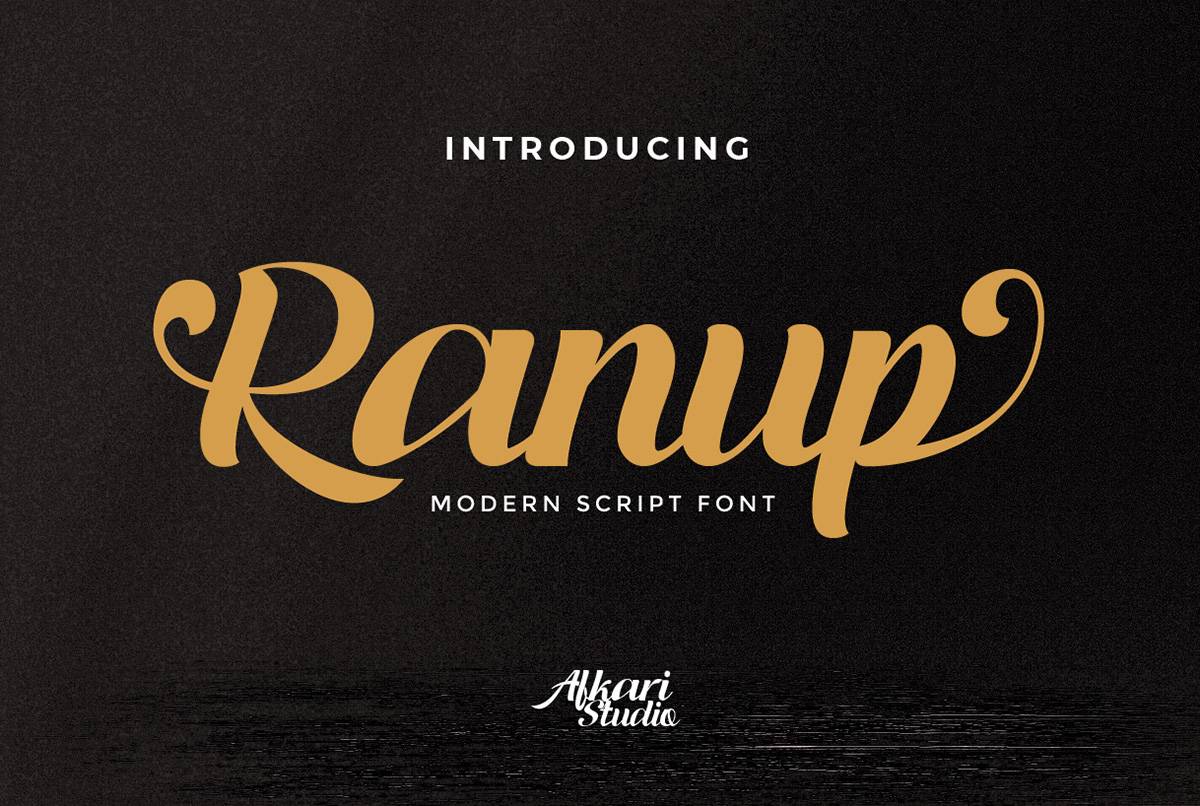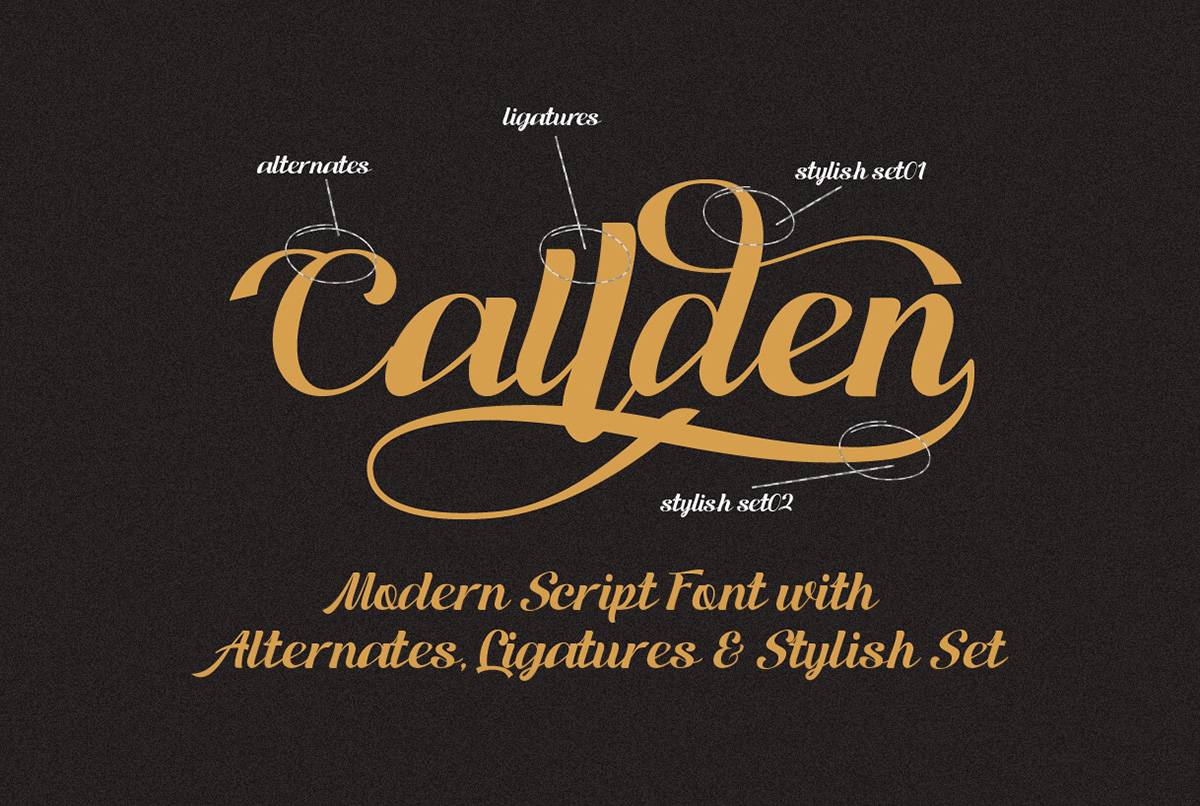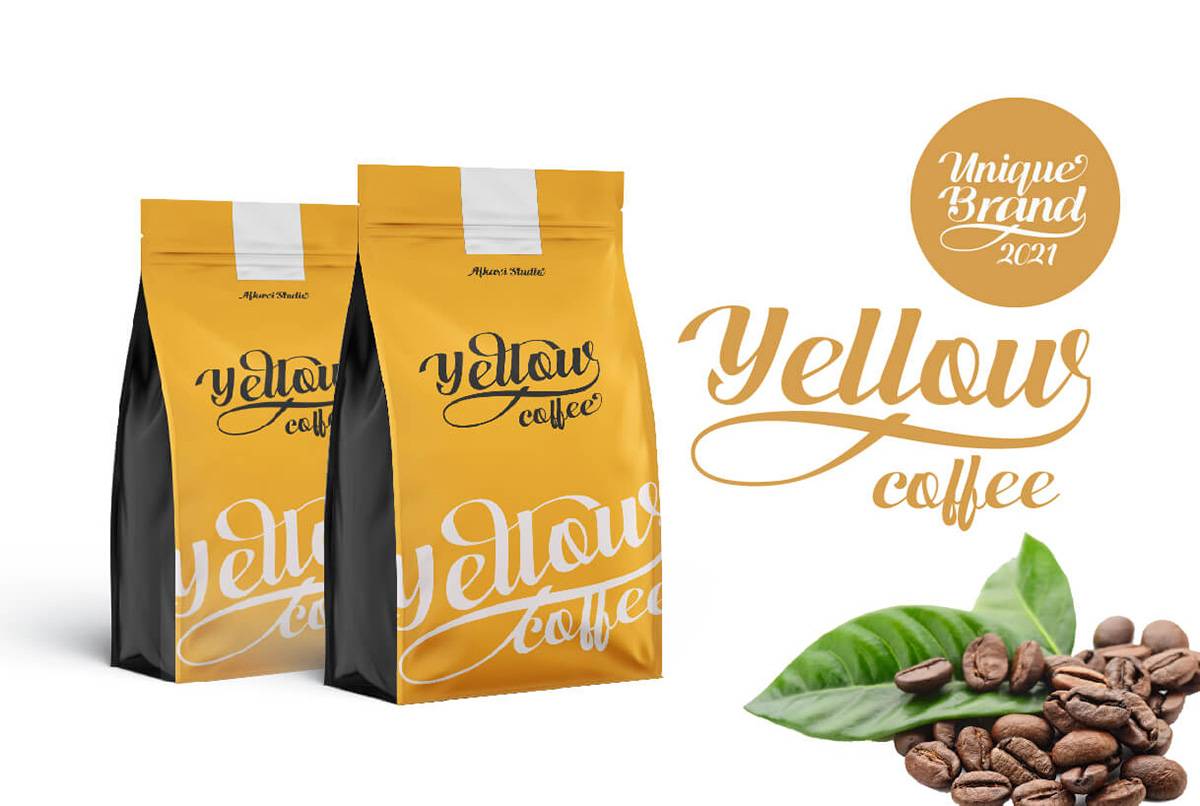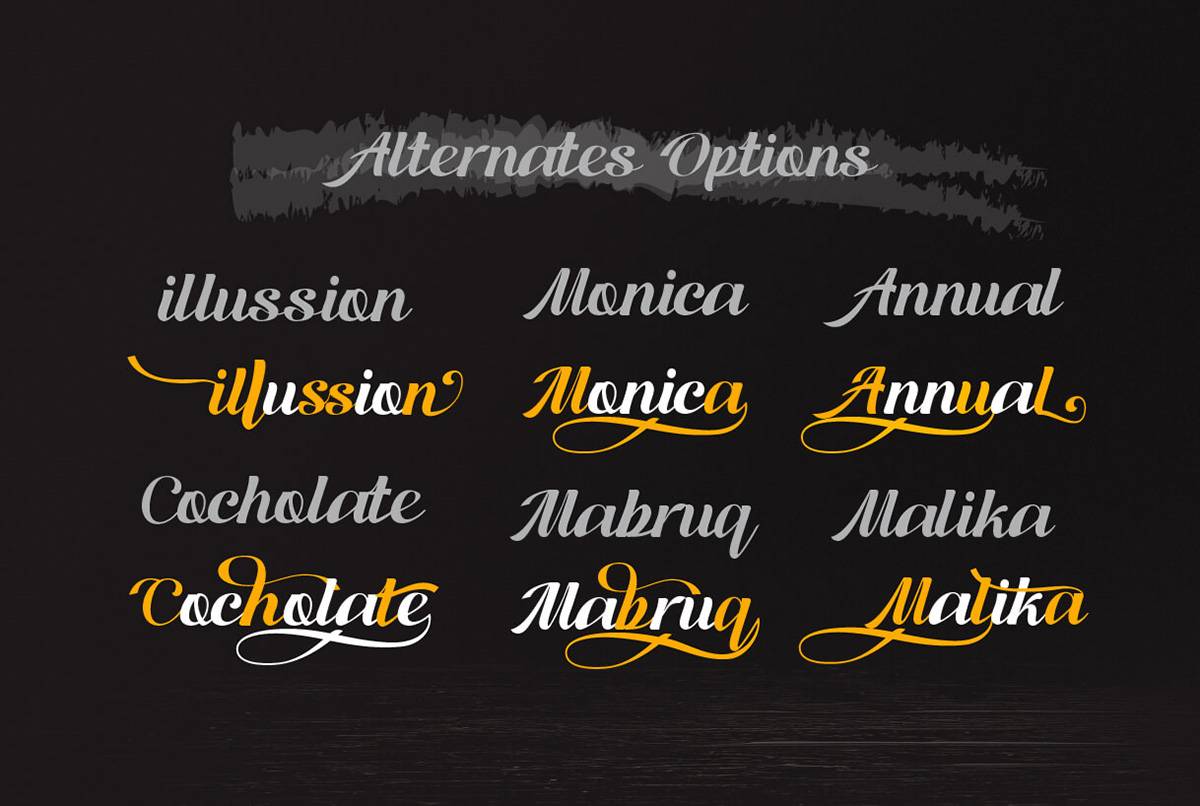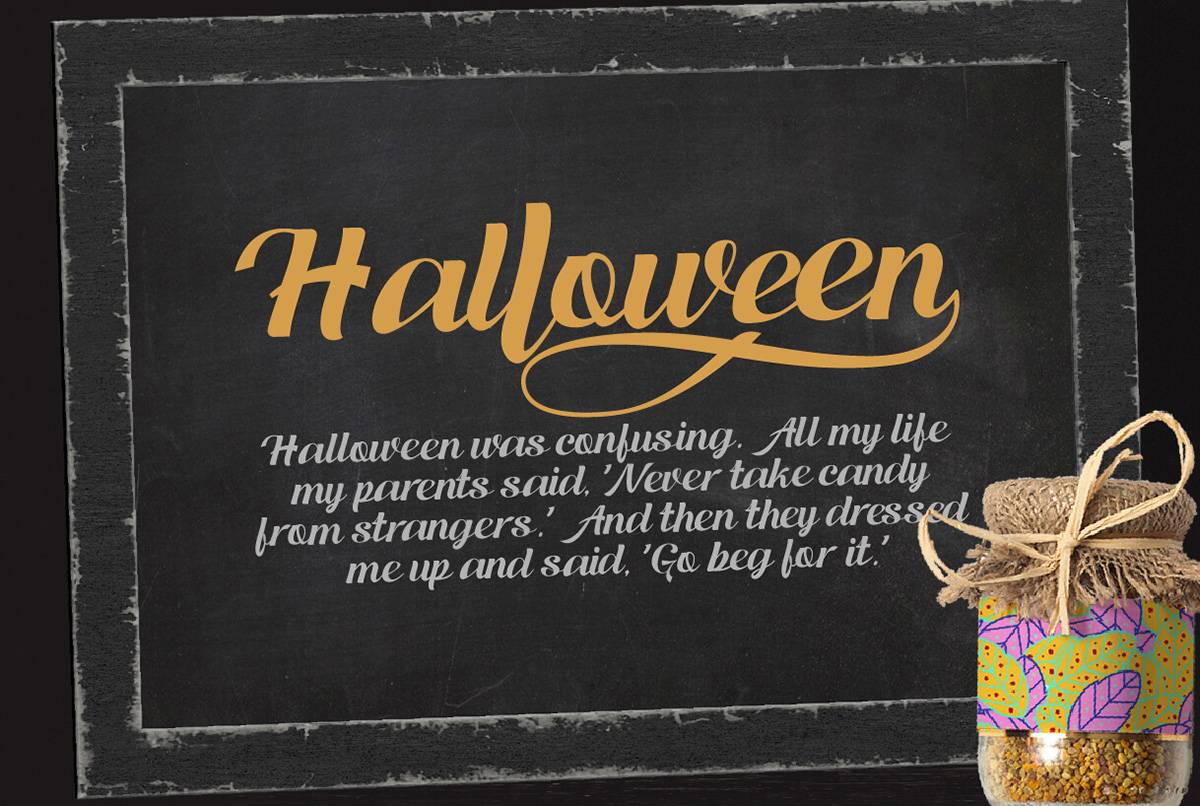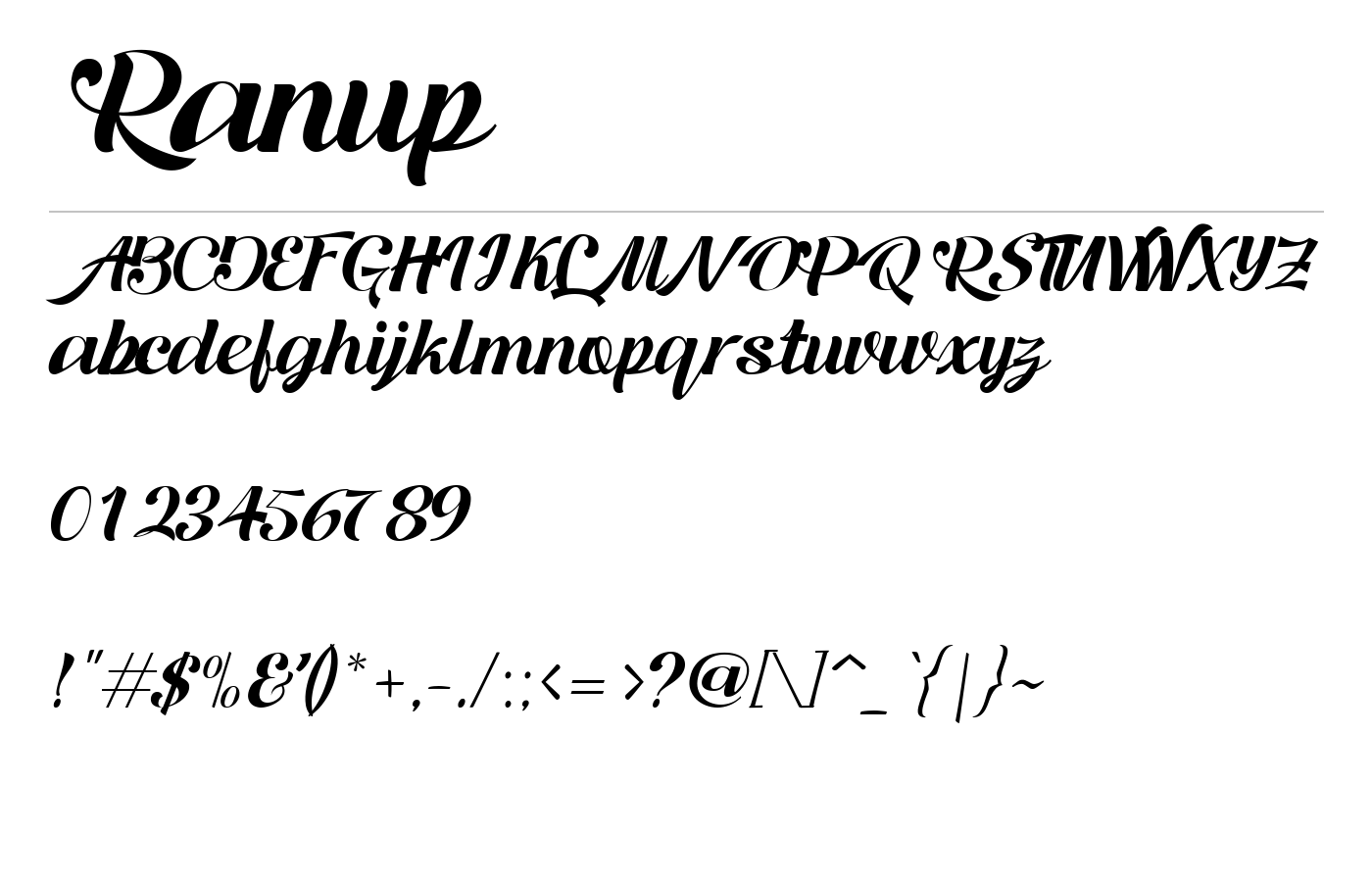
Ranup is an elegant script font featuring a bold weight with smooth, flowing strokes and moderate contrast that lends a stylish, calligraphic feel. Its upright italic style, combined with distinctive letterforms and a lively rhythm, makes it perfect for branding, invitations, and decorative headlines where a touch of sophistication and personality is desired.
Ranup Font
About Ranup Font
| Font family | Ranup Font |
| Designer | Musthafa Kamal Emje - Afkari Studio |